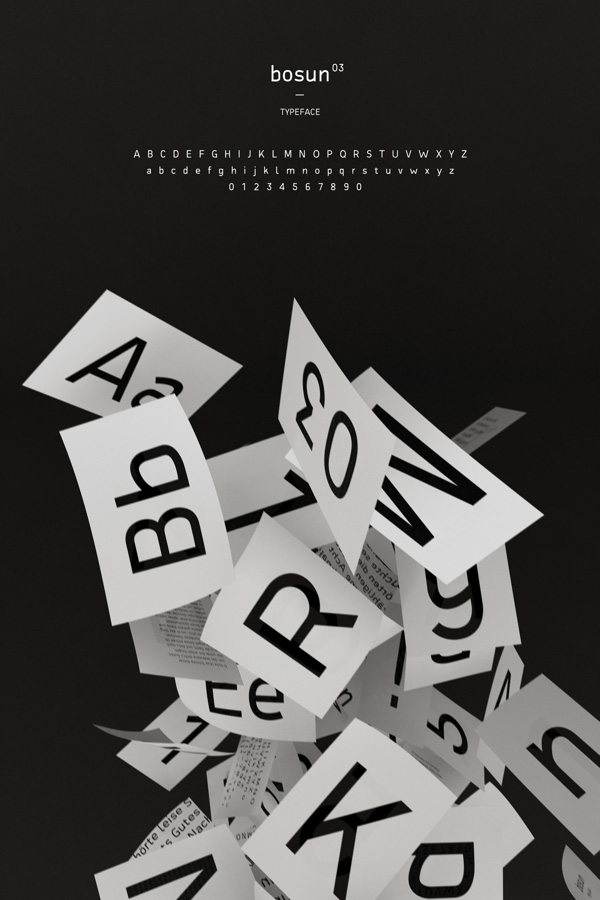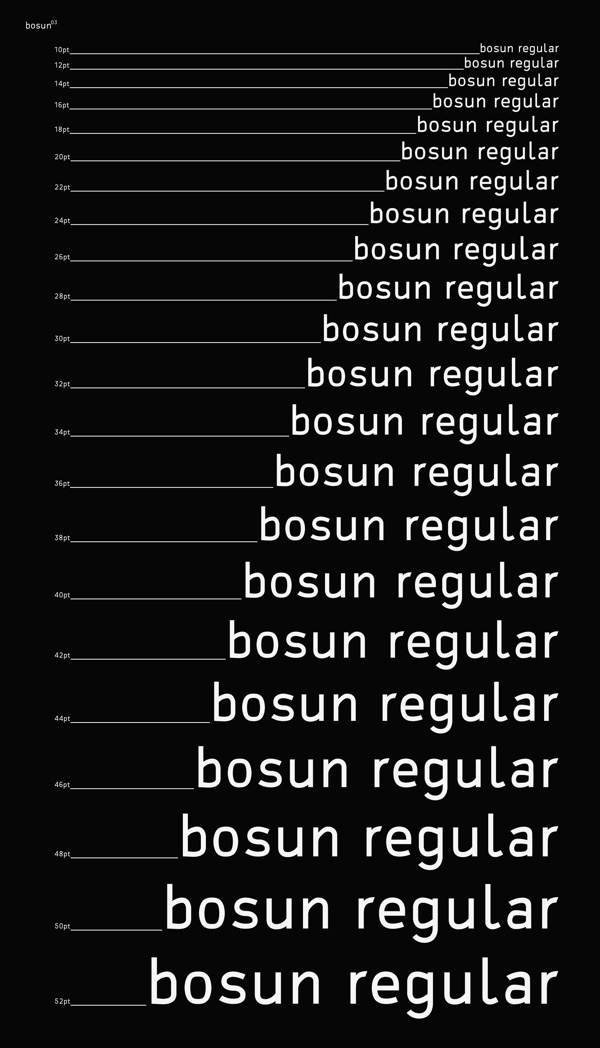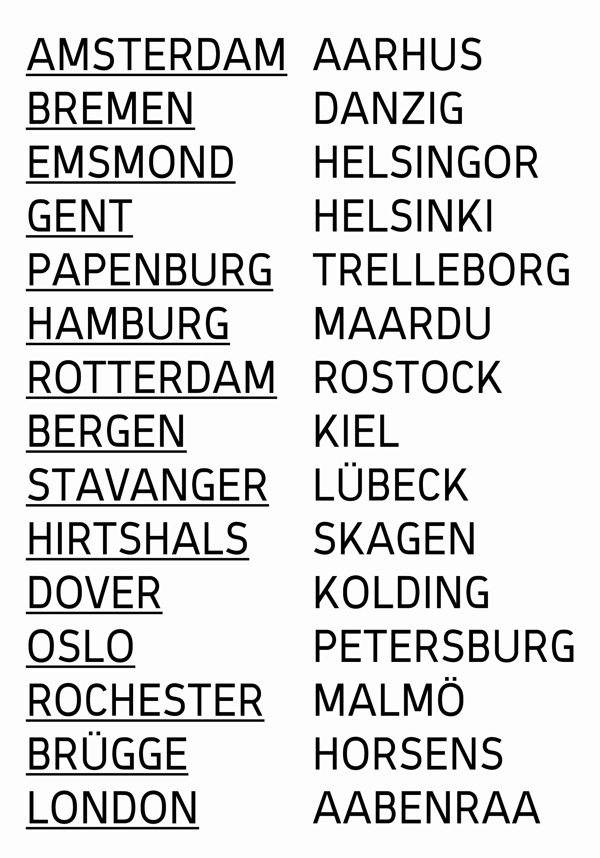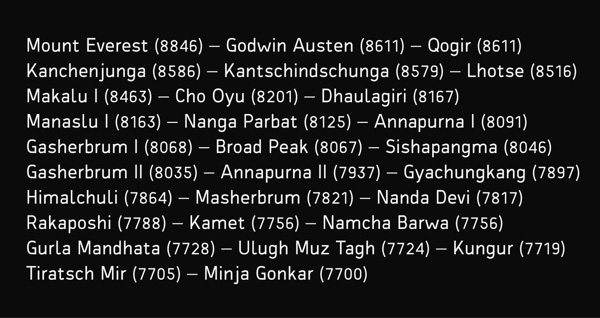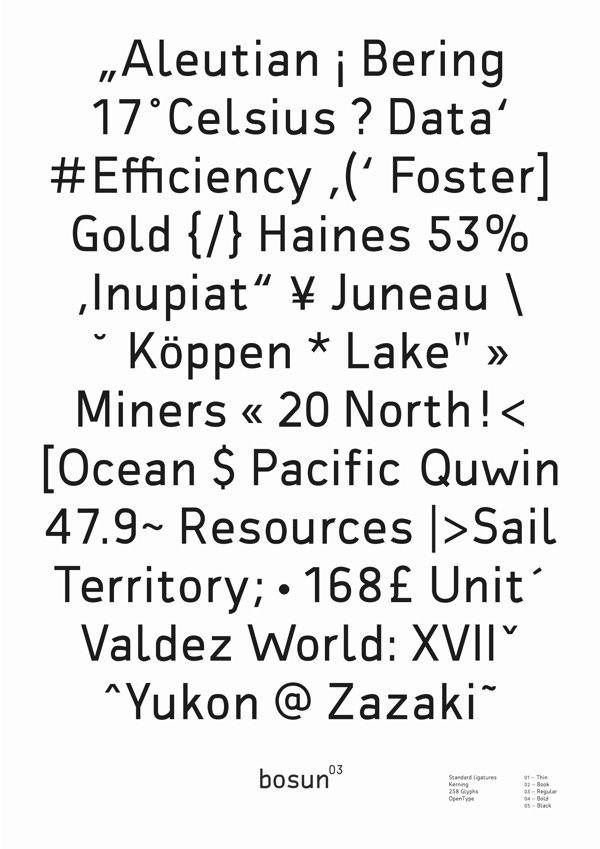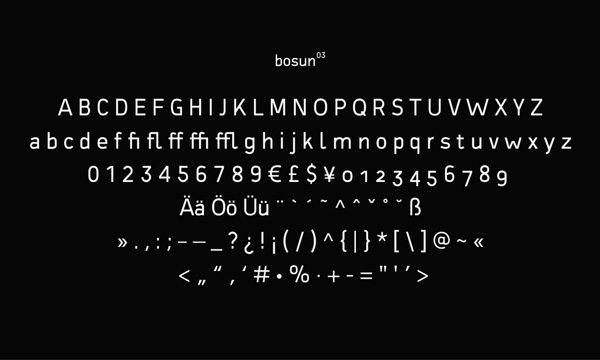
Bosun is a modern interpretation of sans-serif typefaces. It consist of 258+ glyphs and will be available in 5 different styles. Bosun is applicable for nearly any type of graphic design.